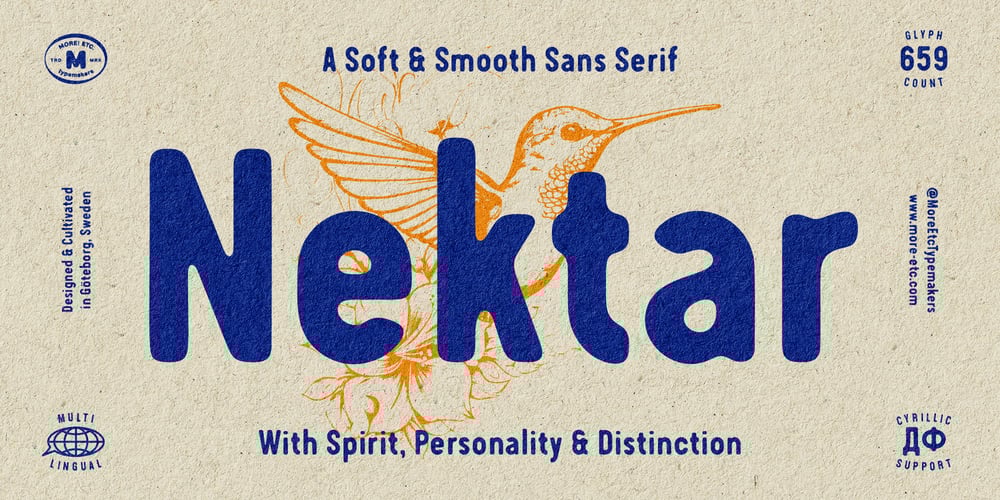
Nektar Font Family was designed by Robert Samsonowitz and published by More Etc. Nektar contains 1 styles and family package options. Nektar is a soft & smooth sans serif typeface with spirit, personality and distinction. This bold, semi-condensed and human sans serif is inspired by the “perfect imperfection” of old prints. The typeface is lively and eye-catching, ideal for where and when you want to make a positive and human impression.The font has over 650 glyphs. It has Multilingual support (including Cyrillic script).